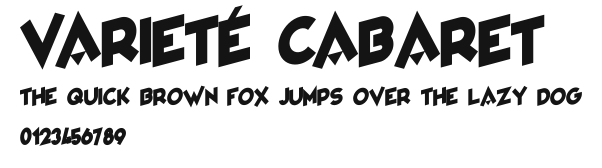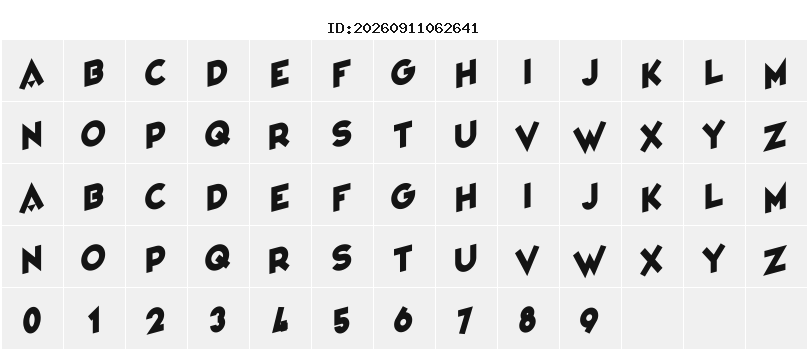
• Font Name: Varieté Cabaret
• Designer: Peter Wiegel
• Manufacturer: Peter Wiegel
About Varieté Cabaret.ttf
Varieté Cabaret.ttf is a modern, elegant sans-serif font designed for ultimate readability and visual harmony. Perfect for branding, headlines, web design, and print materials.